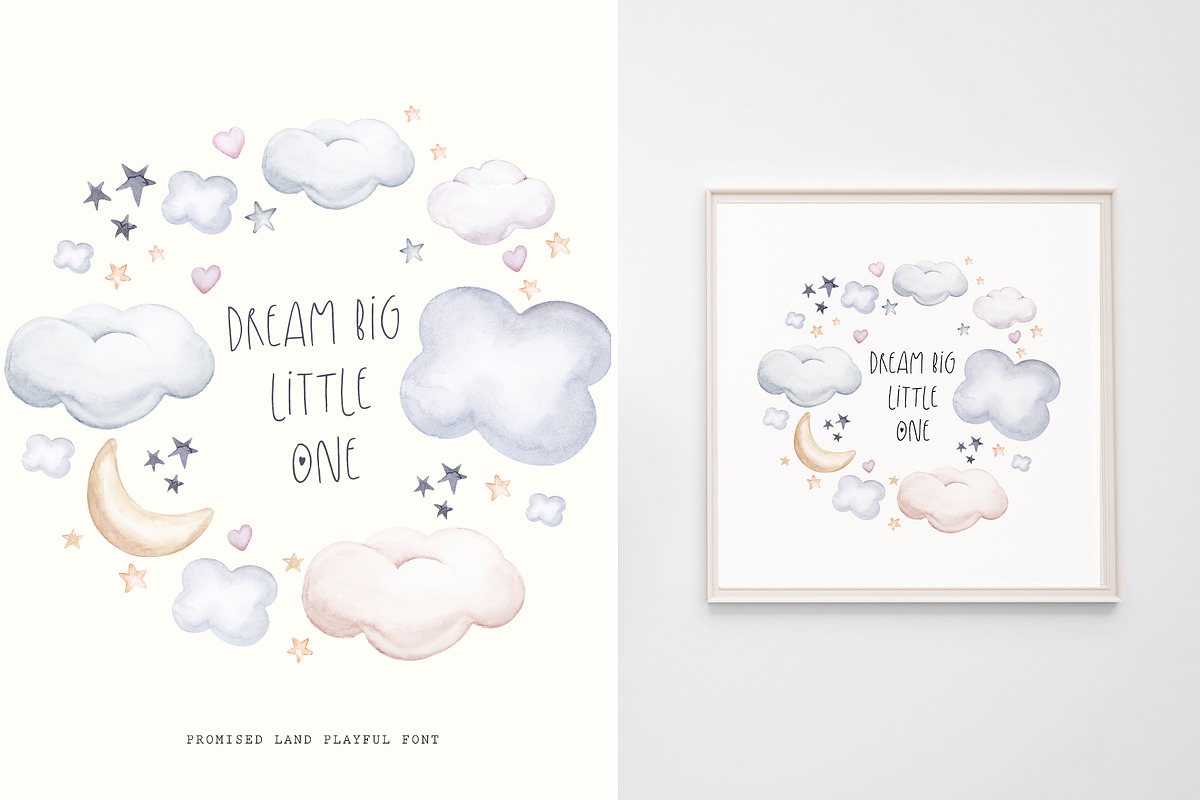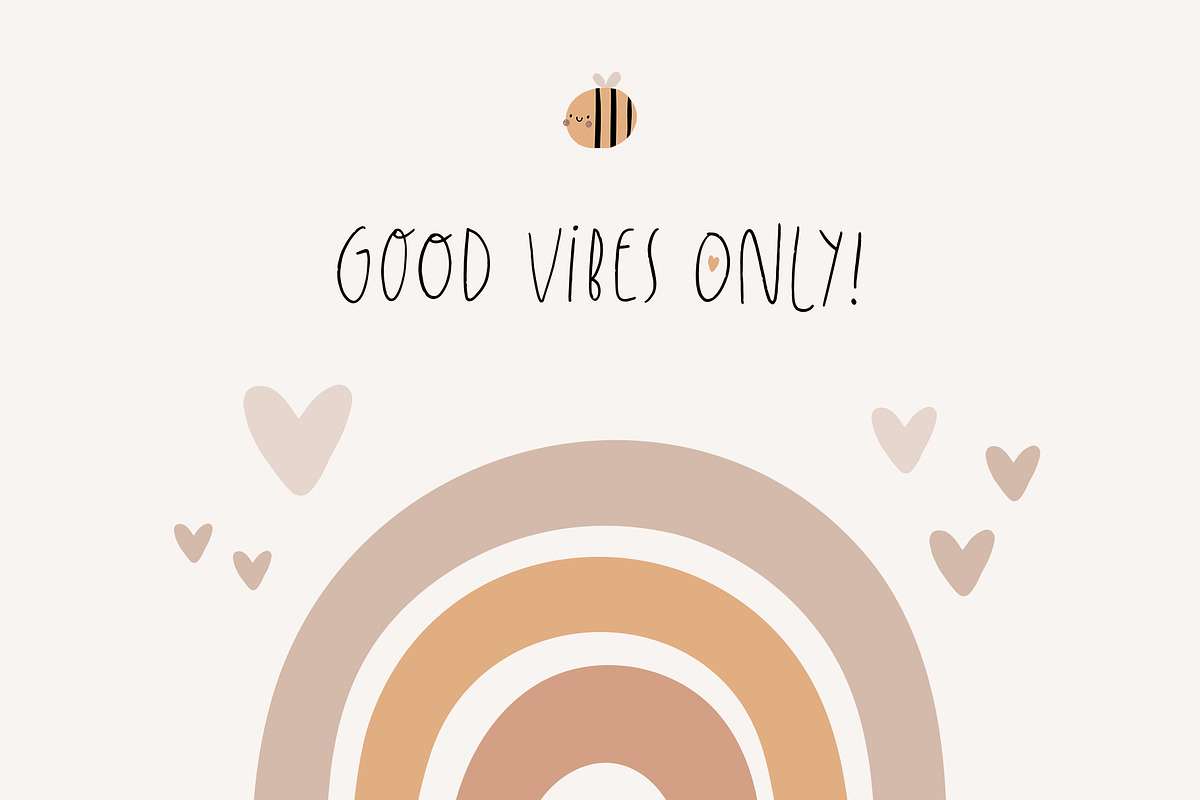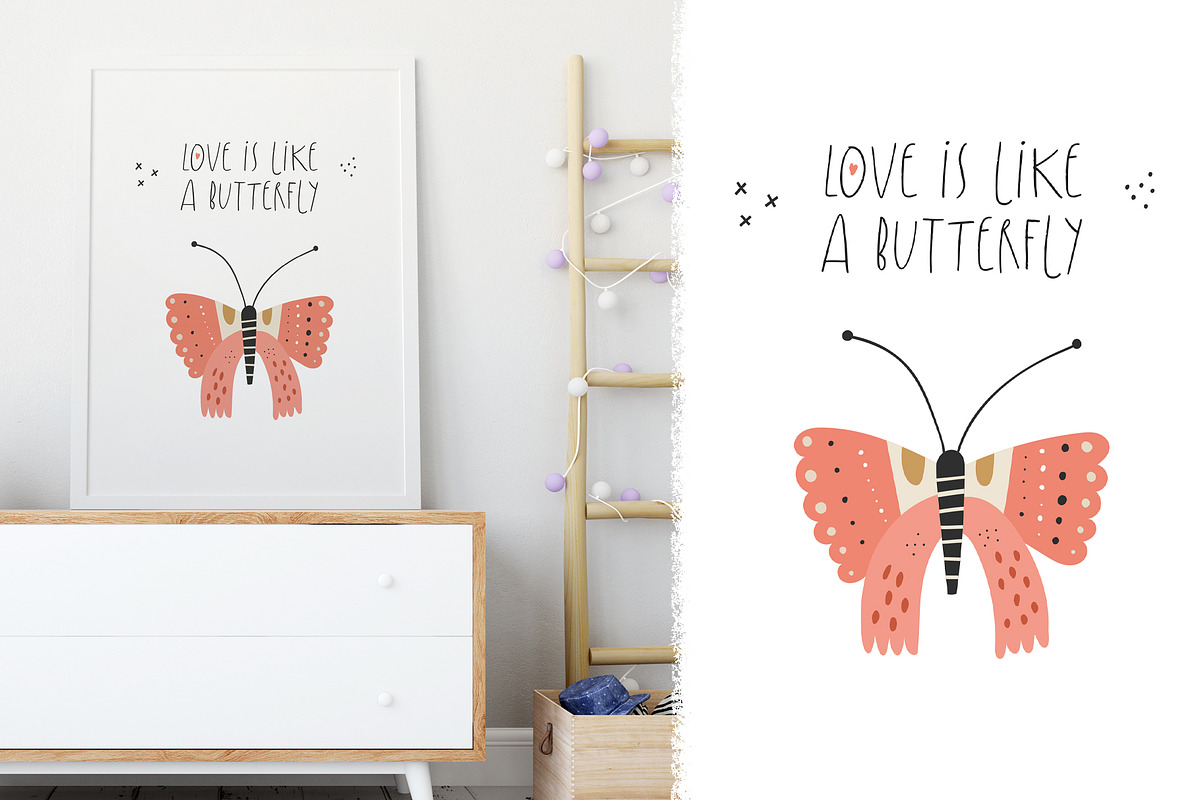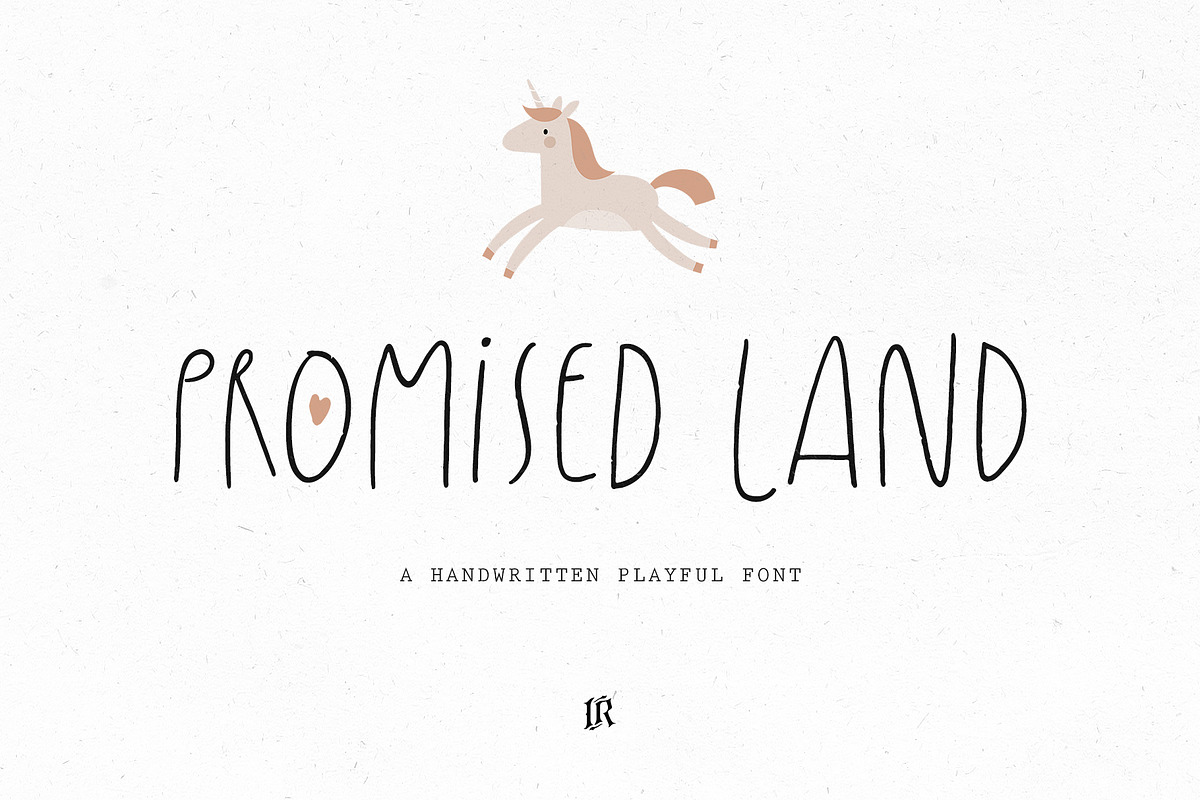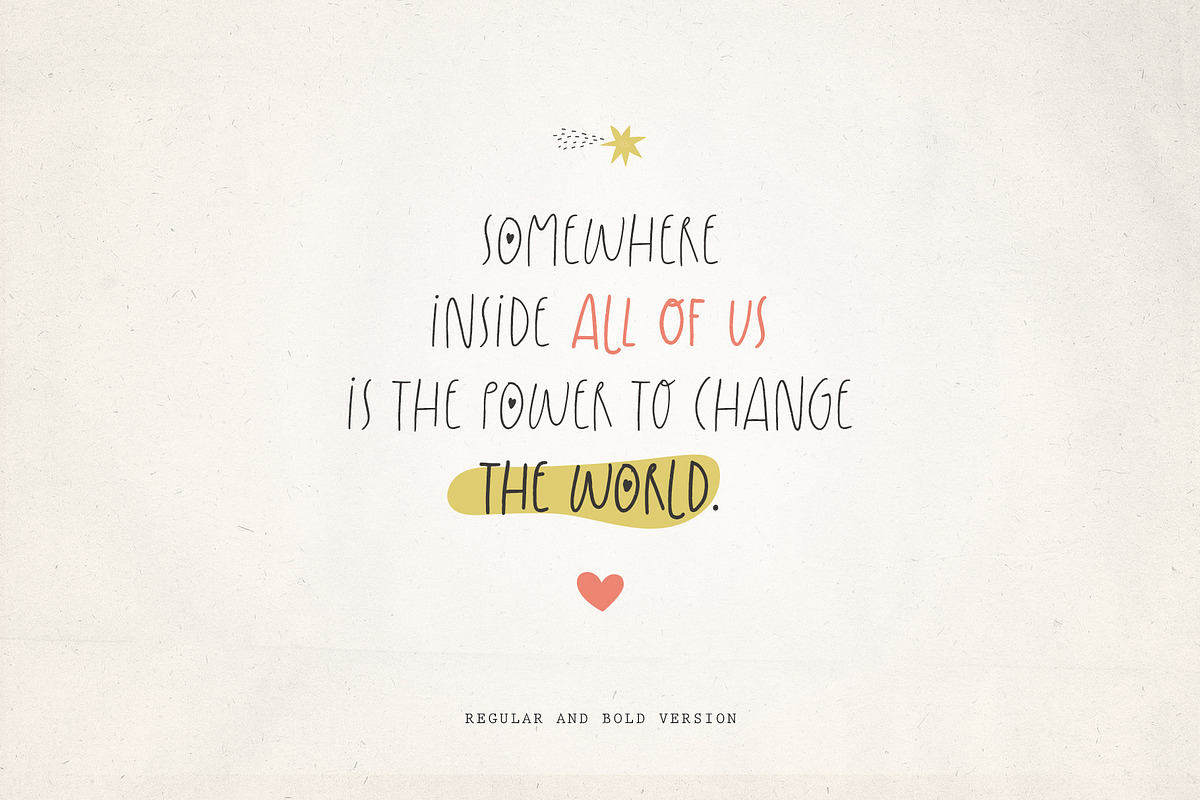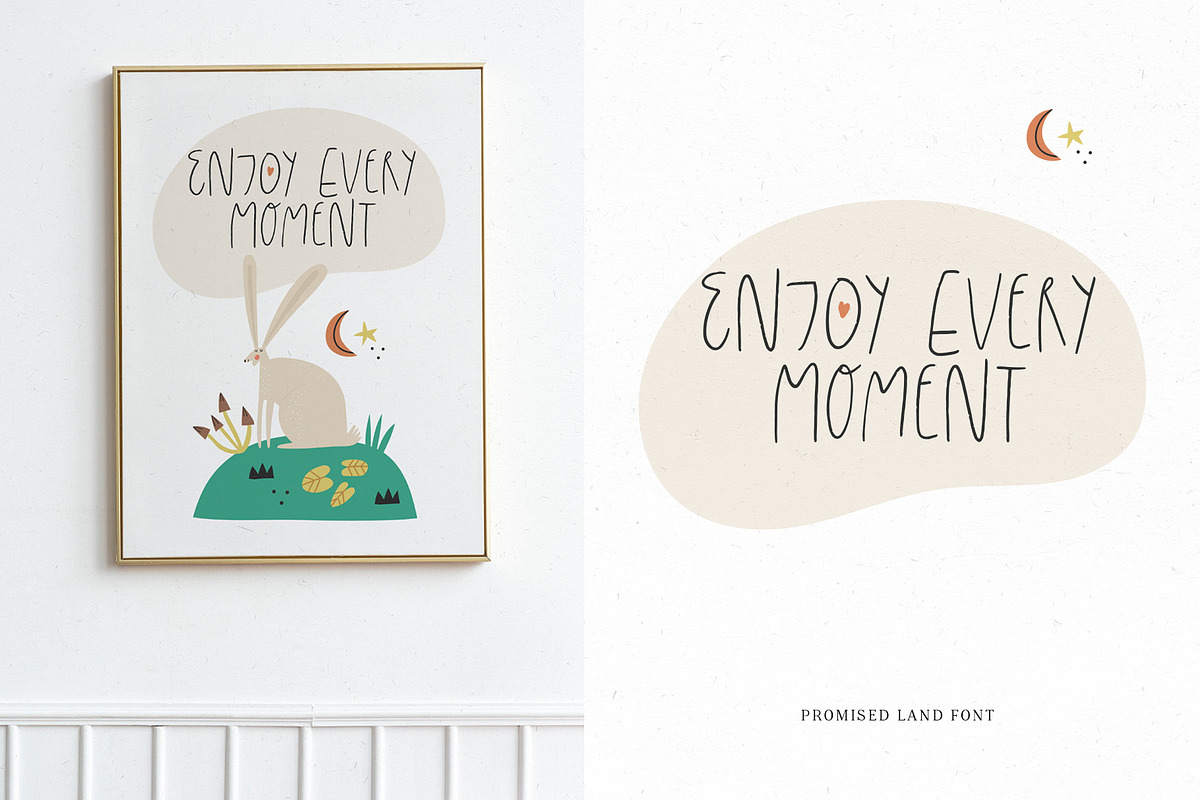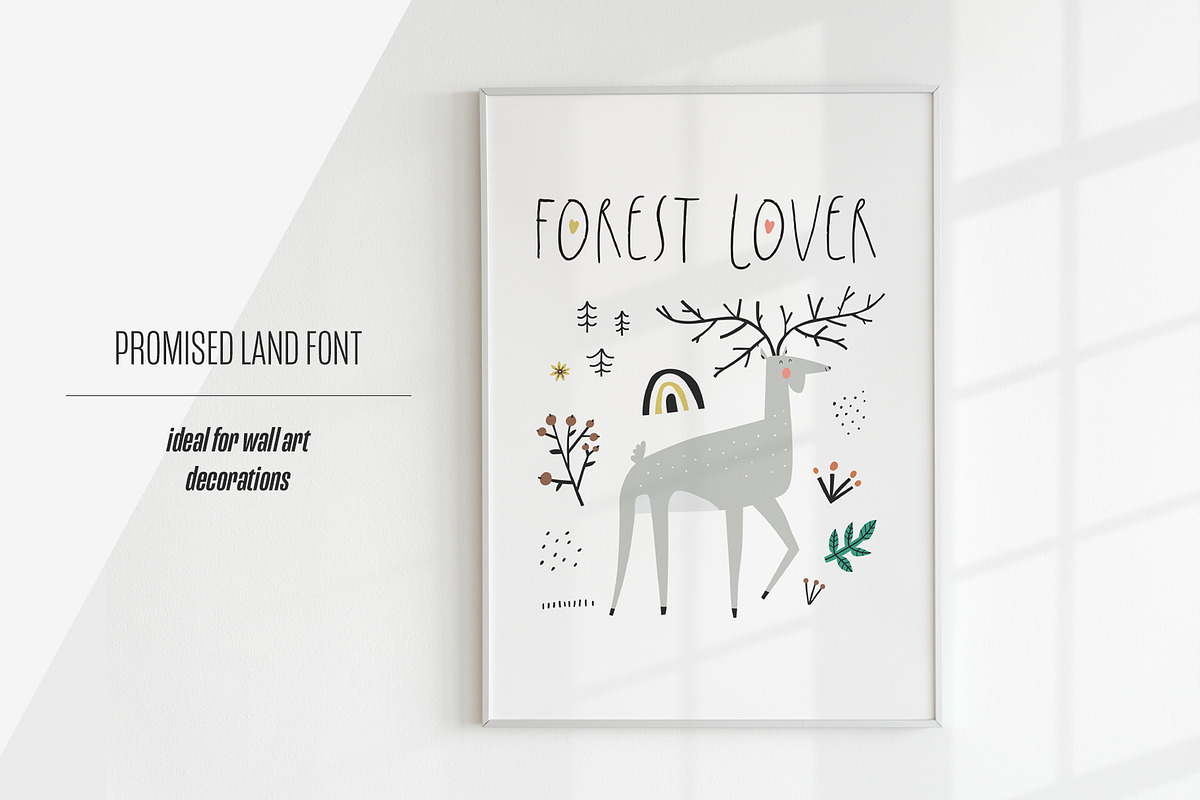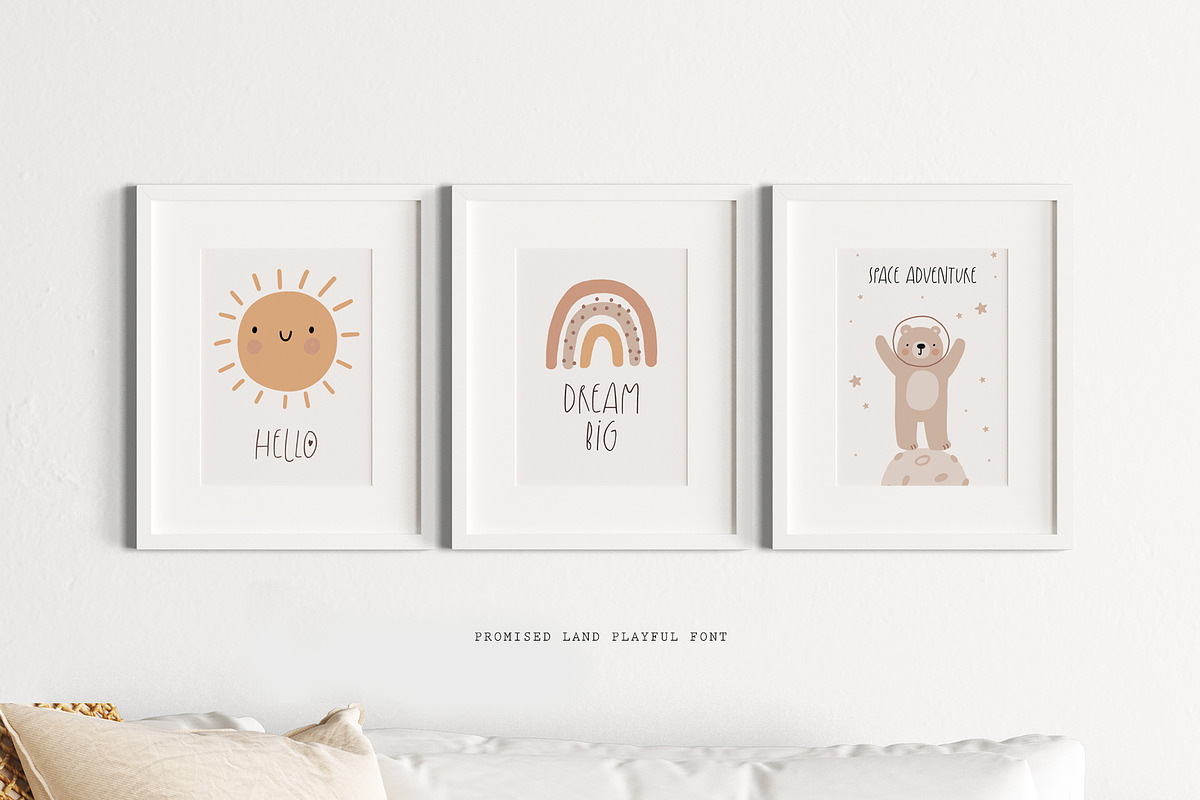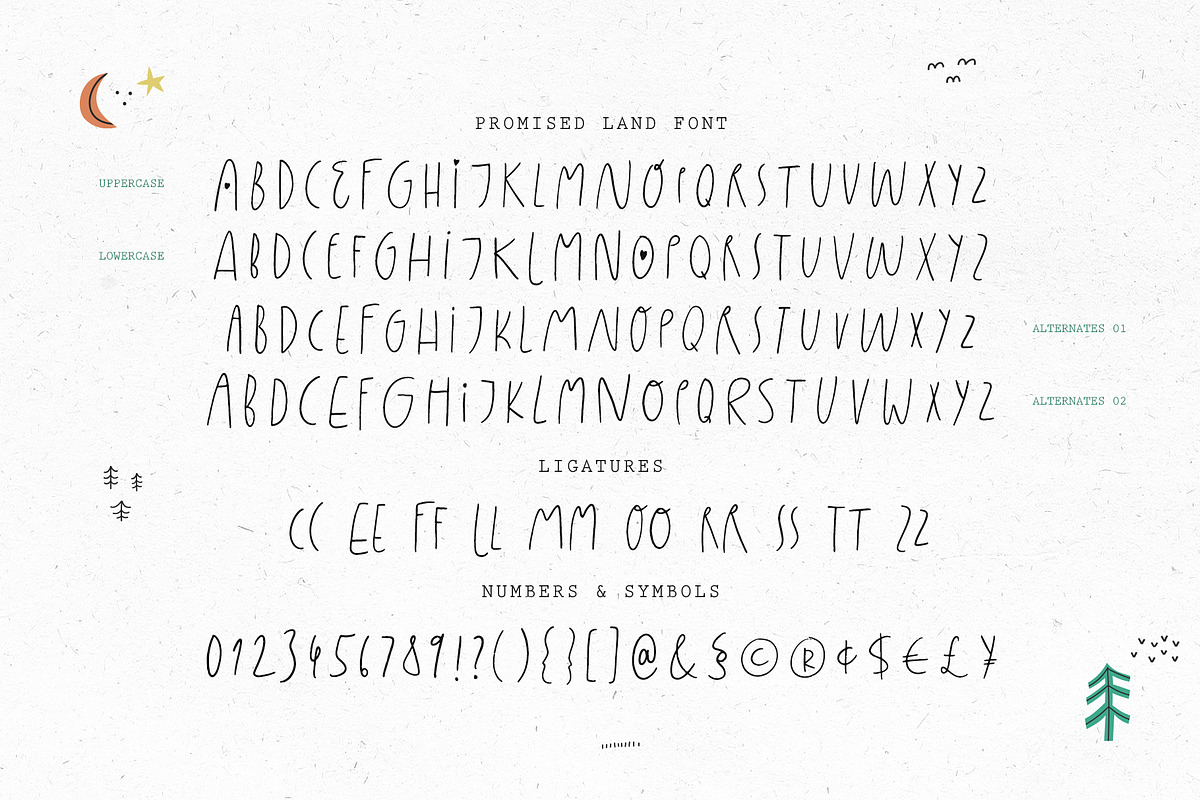
Promised Land - Handwritten Font
Promised Land is a playful handwritten font and will be perfect for wall decoration, books, greeting cards, logos, or anything that requires a fun and childrens look!